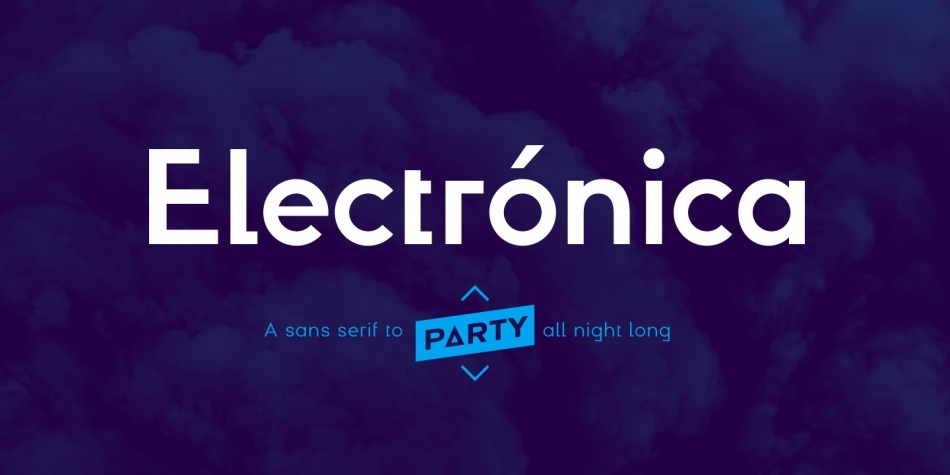
Electronica Font
Electronica Font is perfect for electronic music branding, digital entertainment companies, tech startup identities, futuristic gaming interfaces, electronic dance music promotions, synthesizer product marketing, digital art installations, and cutting-edge advertising campaigns. This electrifying typeface works exceptionally well in both digital applications and print media where electronic innovation and synthetic energy are fundamental design requirements.
What makes Electronica Font so exciting is its dynamic interpretation of electronic music culture and digital synthesis through energized letterforms that seem to pulse with the same rhythmic intensity and synthetic power that drives electronic dance floors and digital soundscapes. The font features charged characters with electronic proportions, synthesized curves, and digital details that communicate technological innovation, rhythmic energy, and the transformative power of electronic music production. Its electrifying personality and digital heritage make it ideal for brands seeking to establish authority in electronic music markets while appealing to audiences who live for the pulse of synthesized beats and digital creativity.
The Electronica Font family includes multiple weight variations with different energy intensities, along with synthesized alternates and electronic ornamental elements. Each style maintains the typeface's charged character while offering comprehensive character sets including digital numerals, electronic punctuation marks, and special symbols designed to enhance electronic communications and synthetic branding efforts across various digital contexts.
This extraordinary typeface represents the perfect fusion of electronic music culture and contemporary design functionality for entertainment and technology industries. Whether you're developing electronic music label identities, creating digital festival materials, or designing synthesizer product campaigns, Electronica Font Free Download delivers the electronic energy and versatility needed to energize digital audiences. The font's synthetic heritage makes it particularly effective for electronic music producers, digital entertainment companies, tech startups, and businesses celebrating the innovative power of electronic creativity and digital synthesis.
The meticulously engineered electronic construction and optimized digital performance in Electronica Font ensure maximum synthetic impact while maintaining clear communication across all electronic applications. Its electrifying presence makes it ideal for electronic branding, digital marketing campaigns, and synthetic communications where its full electronic character can create unforgettable impressions and establish immediate association with innovation, energy, and the cutting-edge world of electronic music and digital creativity.